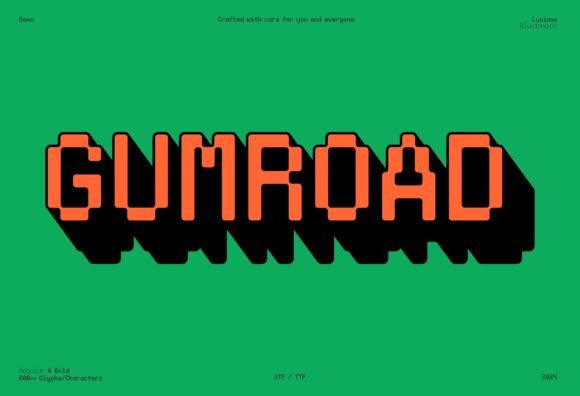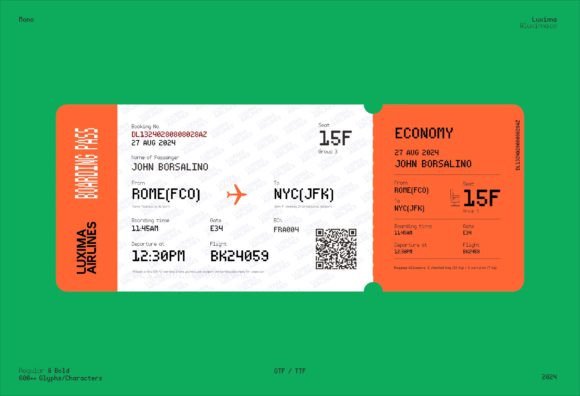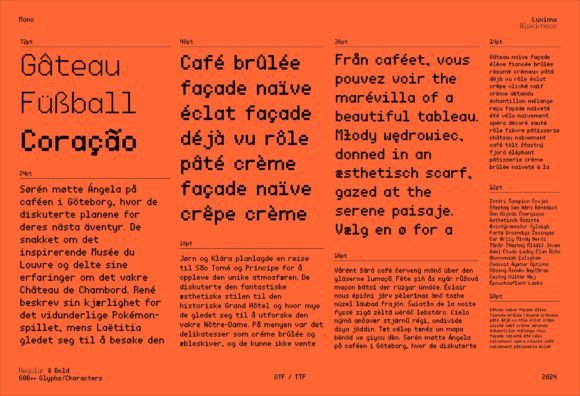
Introduction to Monoflex Font
Have you ever stared at a blank canvas, your mind racing with ideas, yet struggling to find the perfect font to bring your creative project to life? The quest for the ideal typeface can be daunting, but fear not, designers! We’ve got the solution for you. Meet Monoflex Font, a game-changing, high-quality font that’s set to revolutionize your design endeavors.
Monoflex Font is more than just a typeface – it’s a design resource that offers an impressive library of over 500 glyphs, presented in both OTF and TTF formats. This multifaceted font is meticulously tailored to inject logos and branding elements with a distinct, captivating visage. With its perfect balance of fun and authority, Monoflex Font is the perfect choice for designers who want to create dynamic, unforgettable visual designs, all while enjoying the freedom of a free download.
Whether you’re working on a creative project that requires a transparent background or simply need a reliable design resource, Monoflex Font is an excellent addition to your toolkit. Its versatility and high-tech mastery make it an ideal choice for designers who value quality and precision in their work.
Key Features of Monoflex Font
- High-quality design with a unique, modern aesthetic, perfect for creative projects
- Transparent background, ideal for designers who want to achieve a seamless integration with their design resource
- Available in a range of sizes, from 12pt to 72pt, to suit various design needs
- Resolution-independent, ensuring crisp and clear display on high-resolution screens
- Monoflex Font is a highly versatile design resource, suitable for use in logos, titles, headings, and body text
- Designed to be easily scalable, making it an excellent choice for creative projects that require flexibility
Honest Review: Monoflex Font
As a designer, I’m always on the lookout for high-quality fonts to elevate my creative projects. The Monoflex Font caught my eye, and I decided to give it a try. Here’s my honest review.
- ✨ Sleek and modern design: The Monoflex Font has a clean and sophisticated look that’s perfect for any design project.
- ✨ Transparent background: The font’s transparent background makes it easy to overlay on images or other design elements.
- ⚠️ Limited font styles: The Monoflex Font only comes in a few font styles, which may not be ideal for designers who need a wide range of options.
- ⚠️ Not suitable for small text: The font’s design may not be ideal for small text, as it can become difficult to read.
Overall, I’m impressed with the Monoflex Font’s design and ease of use. While it may have some limitations, it’s a great resource for designers who need a high-quality font for their creative projects.
Tips for Getting the Most Out of Monoflex Font
Experiment with different font sizes, styles, and arrangements to achieve the desired look.
Combine Monoflex Font with other design elements, such as images and graphics, to create a visually appealing design.
Use the font in a creative project, such as a logo or branding materials, to add a unique touch.
Take advantage of the font’s transparent background to create a seamless design.
Common Use Cases for Monoflex Font
Can I customize the Monoflex Font for my design project?
The Monoflex Font is a pre-designed font, and its characteristics, such as font size, color, and style, cannot be altered. However, you can use the font in conjunction with other design elements, such as images or graphics, to create a unique visual effect. Additionally, you can use the font’s transparent background feature to overlay it on top of other design elements, adding more depth and visual interest to your project.